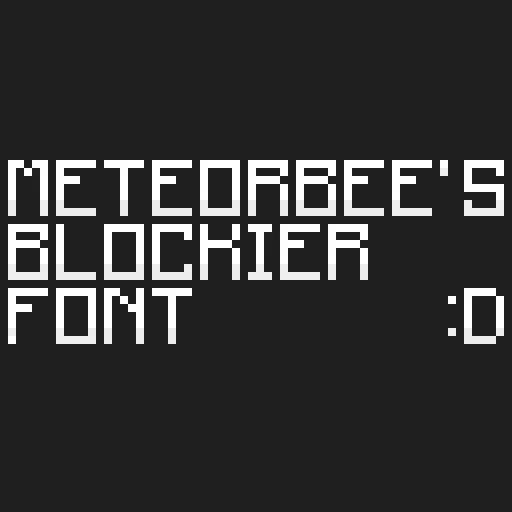
Ever wanted to be able to read the font with just a glance?
With this texturepack the font gets made blockier, making it easier to read quickly. Good for times when you dont have time to deal with the base font.